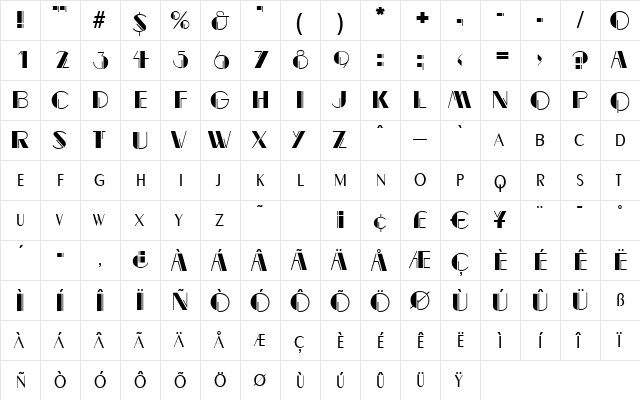
B691-Deco Regular
Design Context for B691-Deco Typeface
B691-Deco is a composed and adaptable typeface that performs quietly and consistently across a wide range of design contexts.